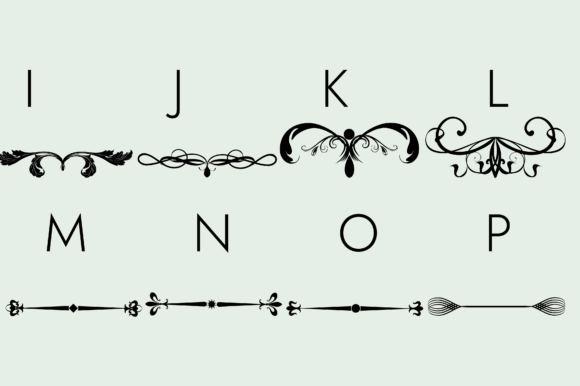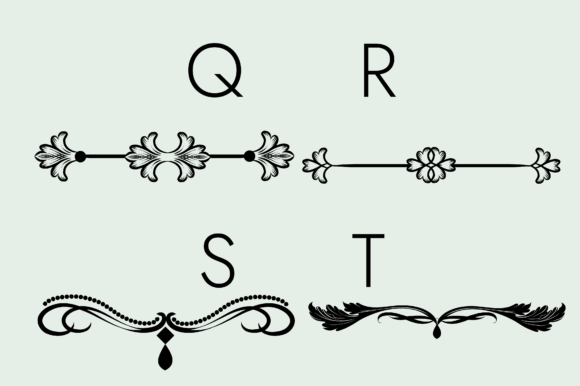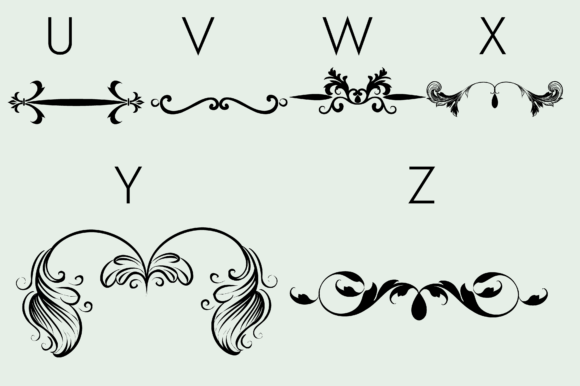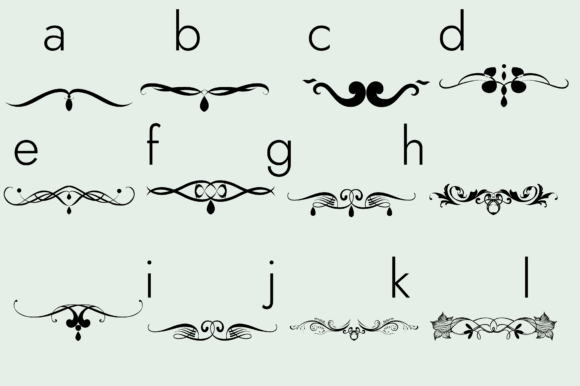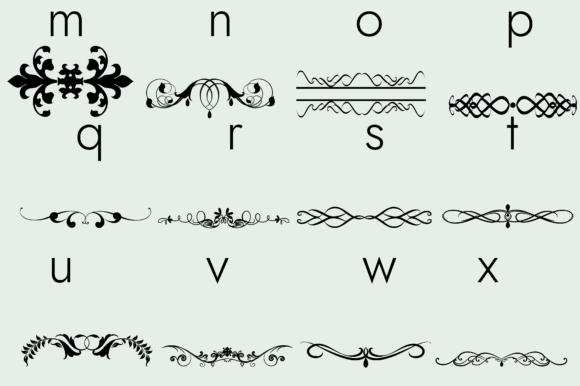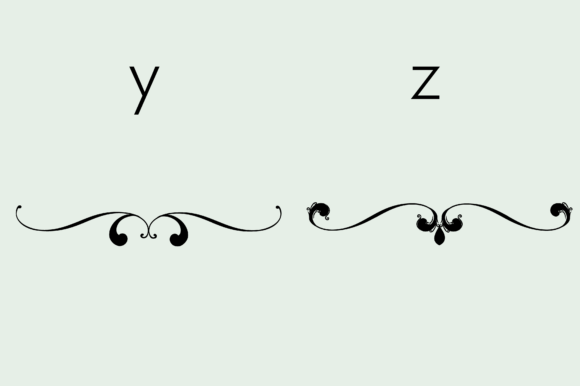
Introduction to Flourishes Dividers and Swirls Font
Have you ever found yourself stuck in a creative rut, struggling to add that extra touch to your design project? Perhaps you’re working on a brochure and need a decorative element to separate sections, or maybe you’re crafting a poster and want to add some flair to your headings. Whatever your design needs, I’m about to introduce you to a game-changing resource that will take your creative projects to the next level: the Flourishes Dividers and Swirls Font.
This versatile dingbats font is a treasure trove of decorations, offering a wide range of flourishes, dividers, and swirls that can be used to add a touch of elegance and sophistication to your designs. With its high-quality design and transparent background, you can easily integrate it into your projects without any hassle.
Key Features of Flourishes Dividers and Swirls Font
• High-quality design resource featuring intricate flourishes, dividers, and swirls for creative projects
• Unique characteristics include ornate flourishes, delicate swirls, and elegant dividers, perfect for adding a touch of sophistication to designs
• Perfect for designers, artists, and crafters looking for a high-quality design resource to enhance their creative projects
Honest Review: Flourishes Dividers and Swirls Font
I recently stumbled upon the Flourishes Dividers and Swirls Font, and I must say it’s been a game-changer for my creative projects. This design resource is a must-have for anyone looking to add a touch of elegance to their work.
• High-quality design: The Flourishes Dividers and Swirls Font is a beautifully crafted collection of dividers, swirls, and flourishes that will elevate any design.
• Transparent background: Each element has a transparent background, allowing for seamless integration into any design.
What doesn’t work so well ⚠️:
• Limited customization options: While the font is versatile, there’s limited room for customization, which might be a drawback for some designers.
Overall, I’m thoroughly impressed with the Flourishes Dividers and Swirls Font. It’s a fantastic addition to any designer’s toolkit, and I highly recommend it for any creative project that requires a touch of sophistication.
Flourishes Dividers and Swirls Font Overview
This free download is a high-quality design resource perfect for adding a touch of elegance to your creative project. The Flourishes Dividers and Swirls Font features intricate designs with transparent backgrounds, making it easy to customize and blend with your existing design elements.
Experiment with different combinations of flourishes to create unique designs. Use the transparent background feature to blend with other design elements. Consider scaling the flourishes to fit your design needs.
The Flourishes Dividers and Swirls Font is perfect for wedding invitations, party decorations, and other creative projects that require a touch of sophistication. Use it to add a decorative border, create a focal point, or add visual interest to your design.